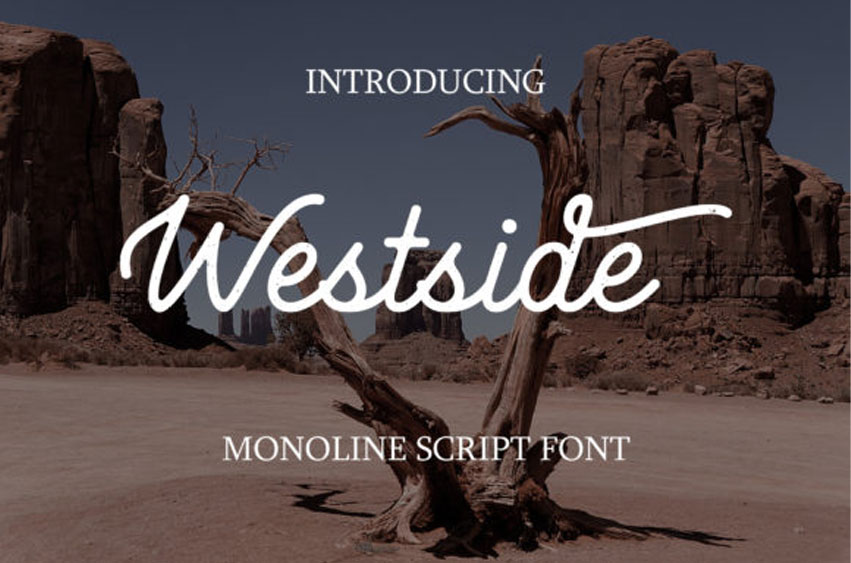
West Side Monoline Font is a beautiful, well-balanced, and vintage-styled script font. It is defined by smooth curves and is perfect for fashion branding or editorial designs.